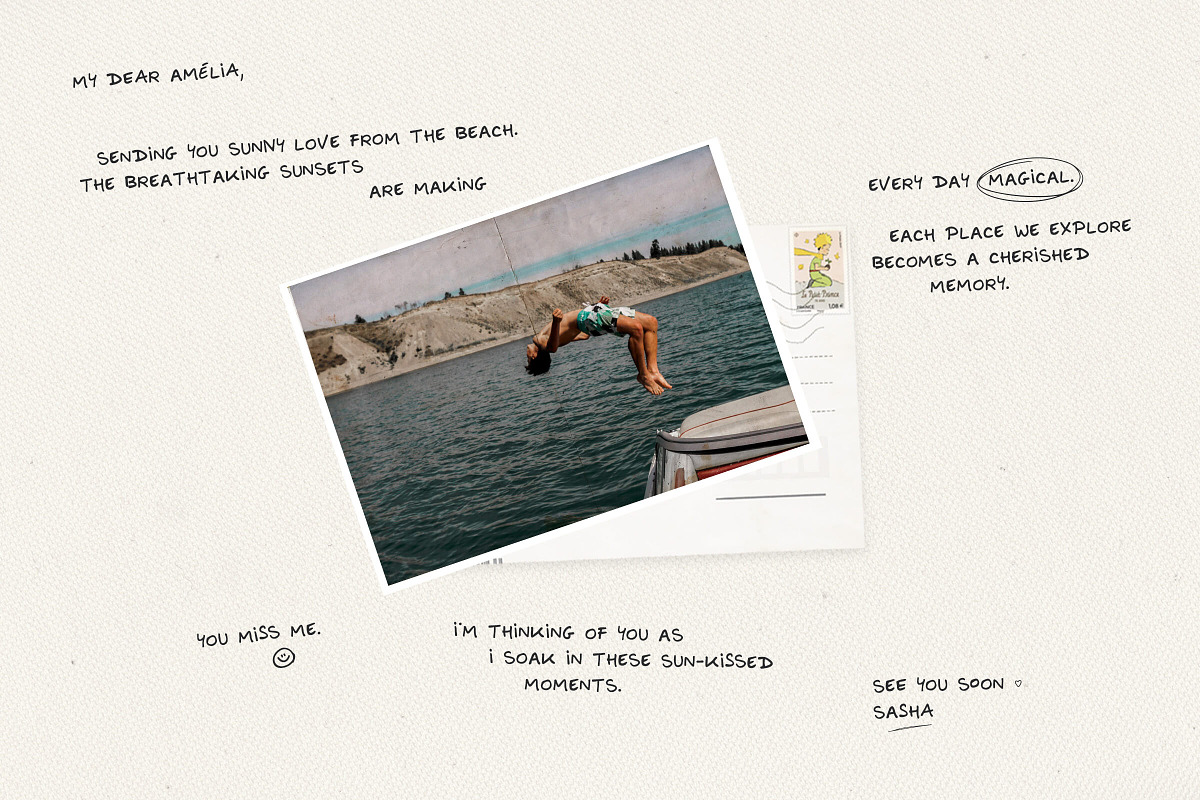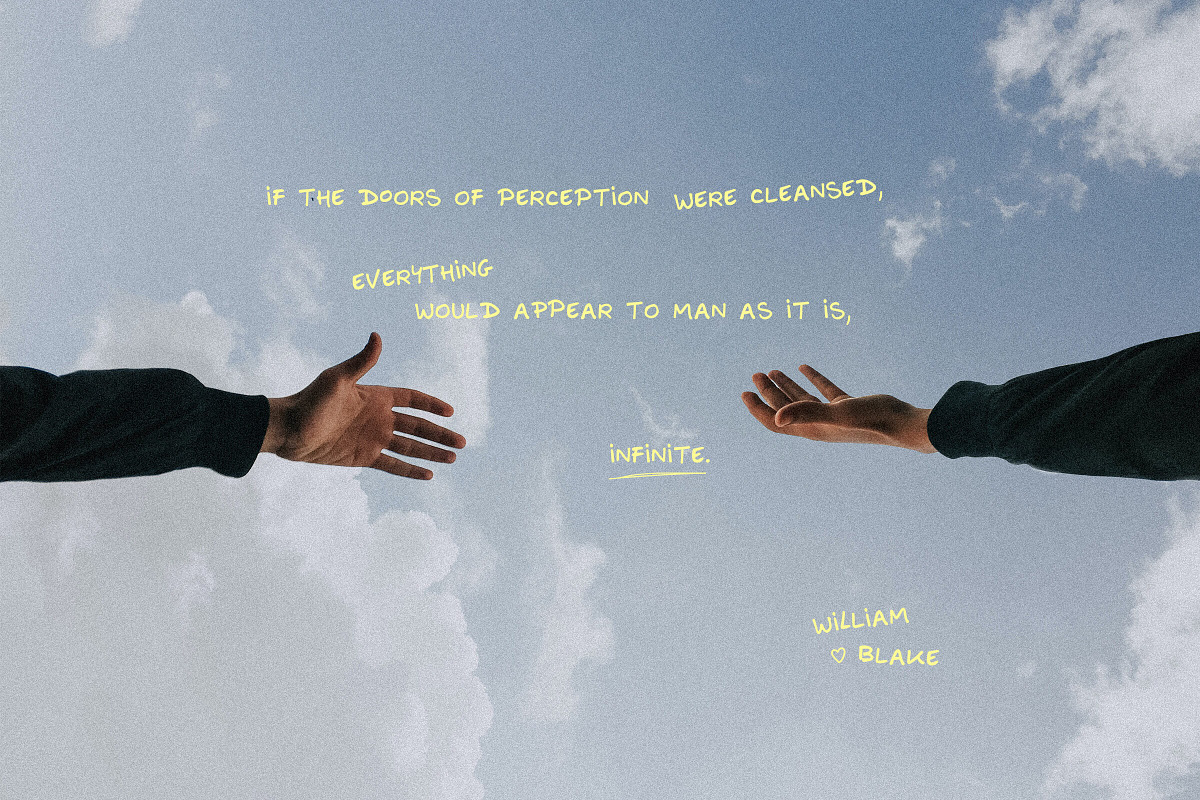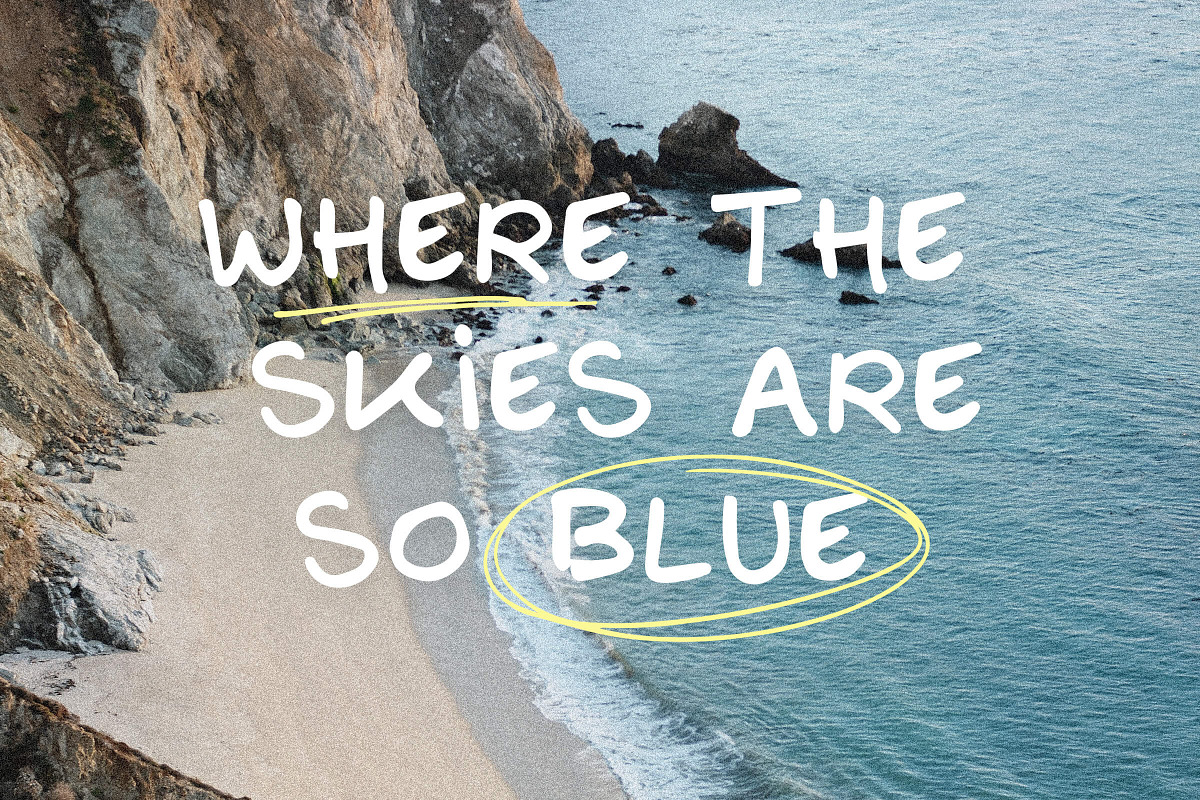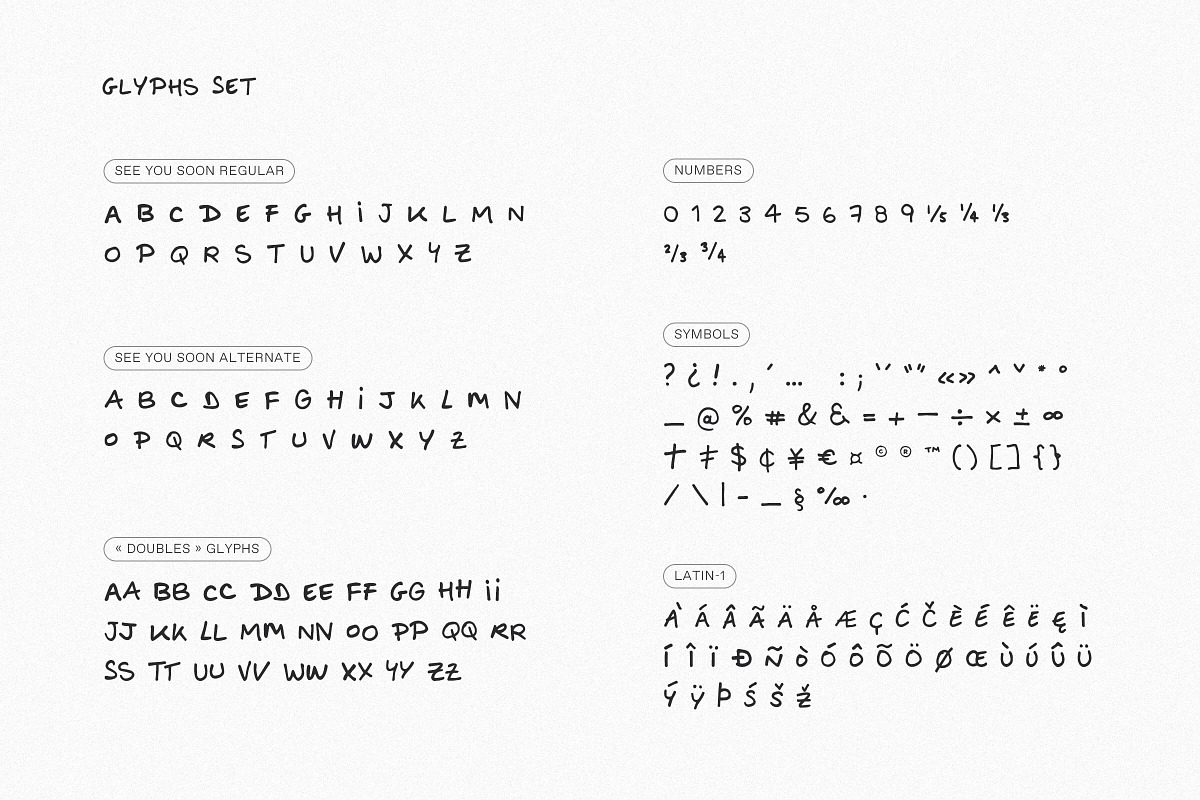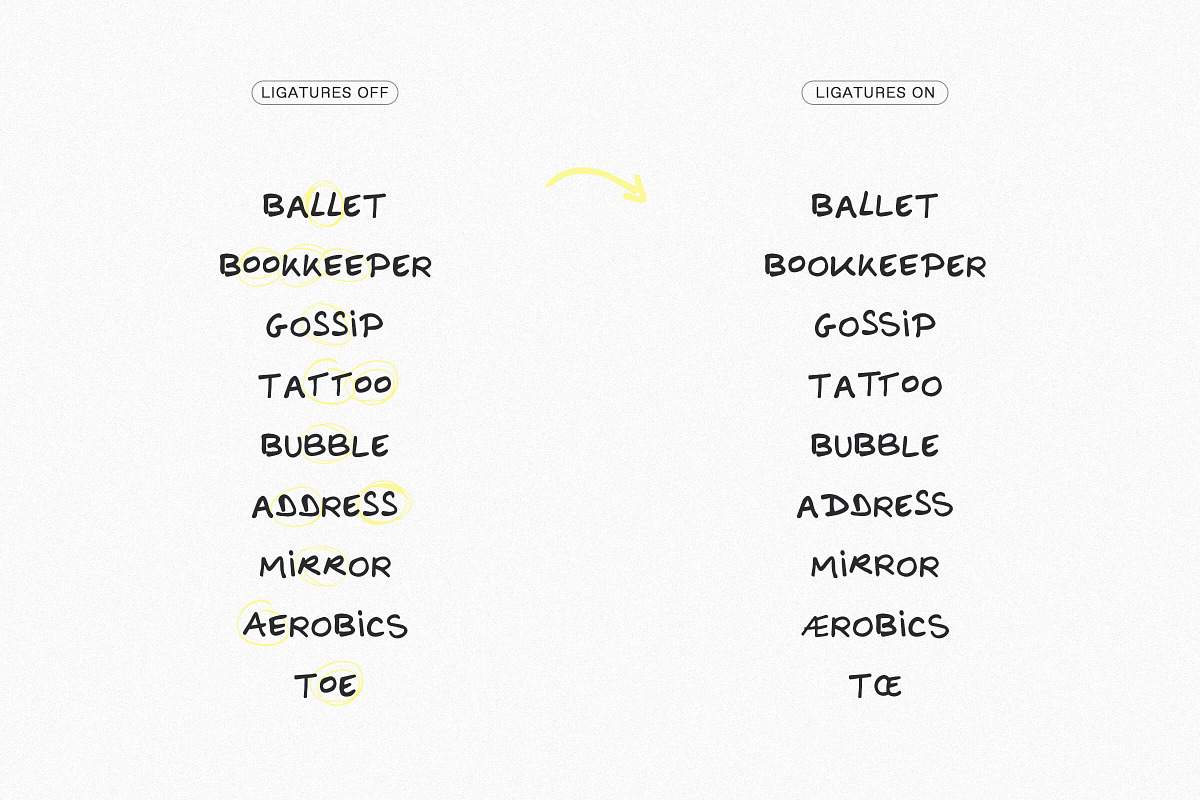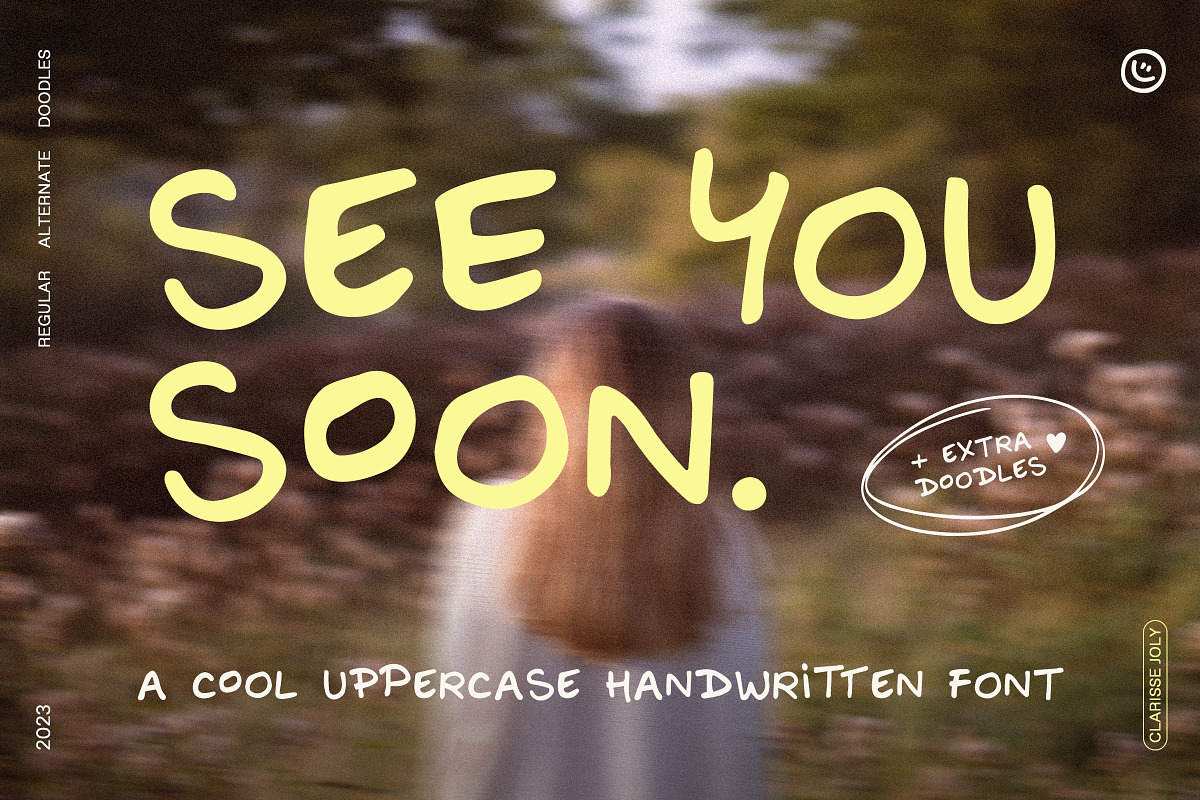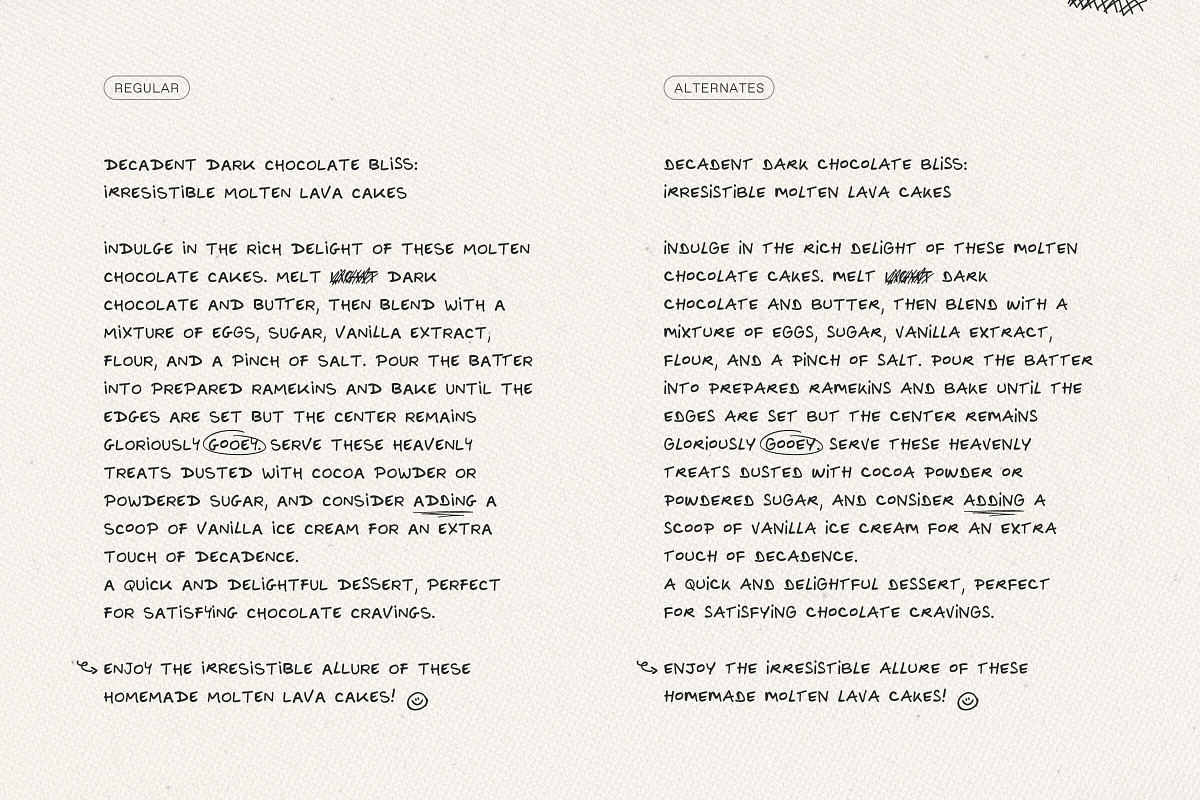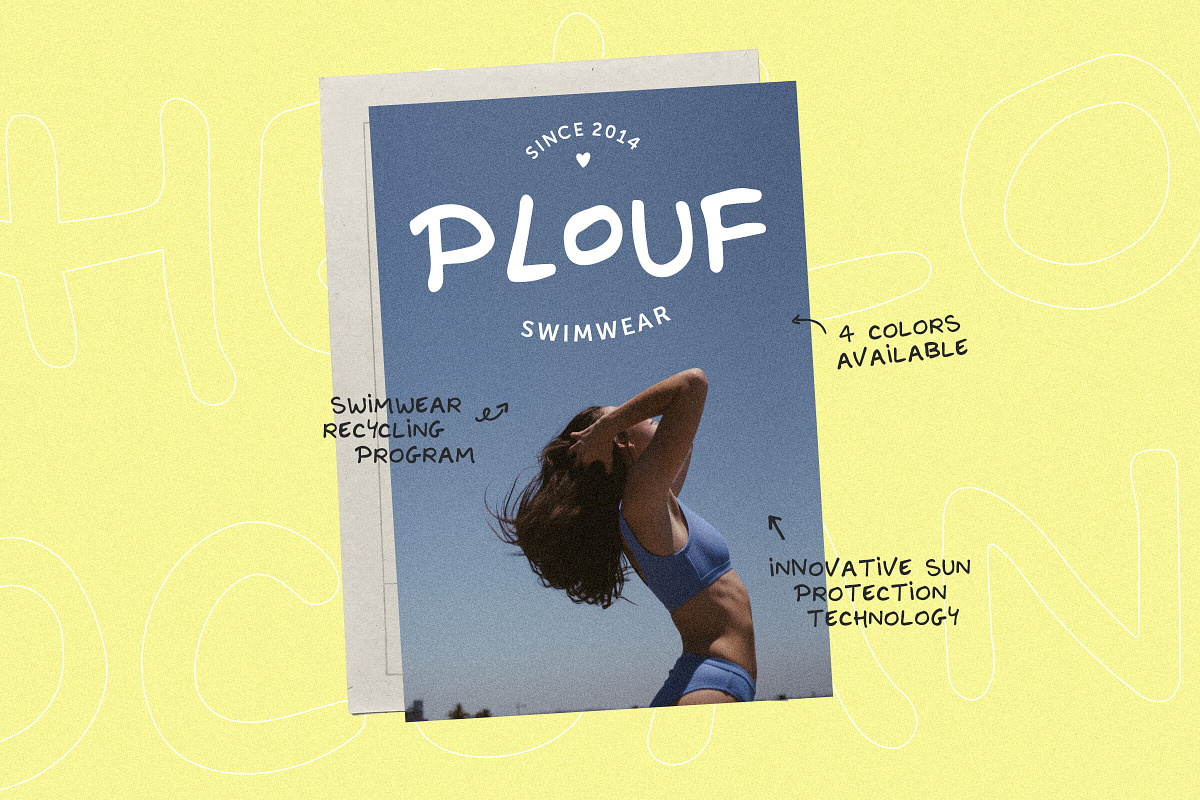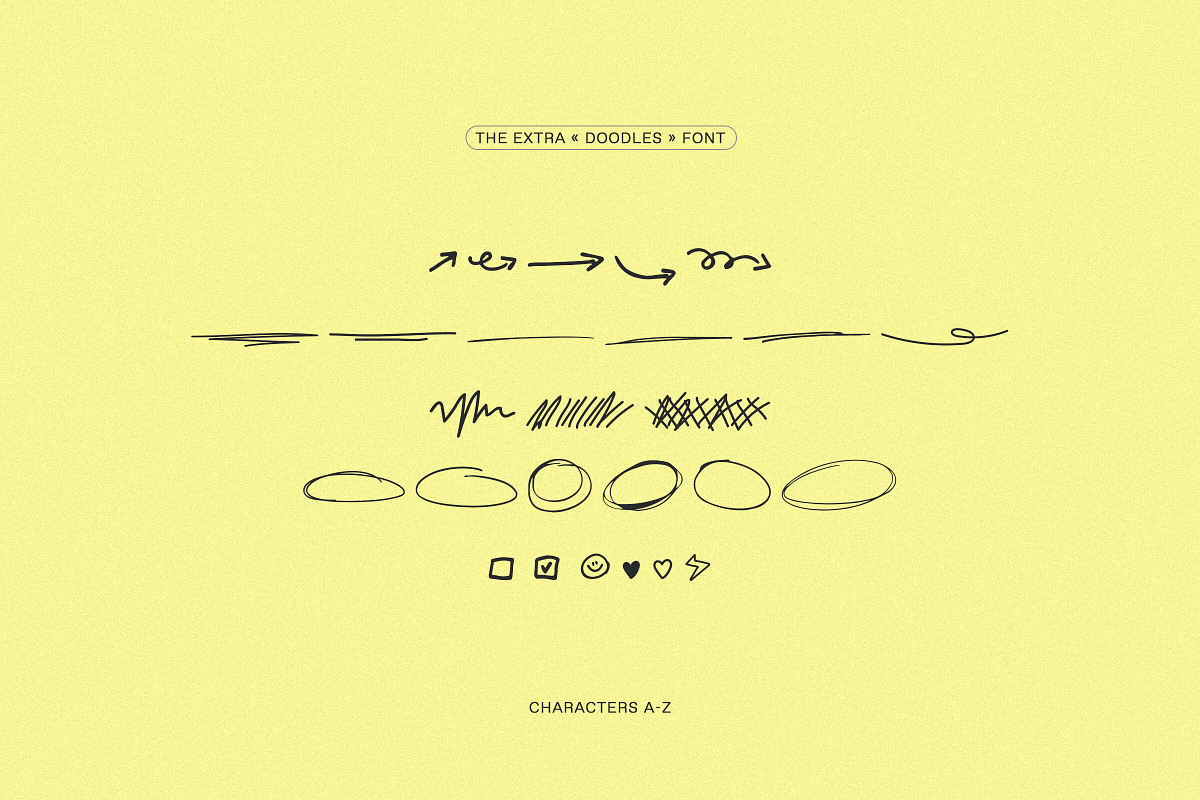
see you soon | Handwritten font
see you soon is a cool uppercase handwritten font for a perfect note effect and an authentic look. Created from real handwritting, it's an ideal simple font for annotations, quotes, creating a natural logo or whatever inspires you.
Also, an alternative version and extra doodles are included for extra handmade goodness!